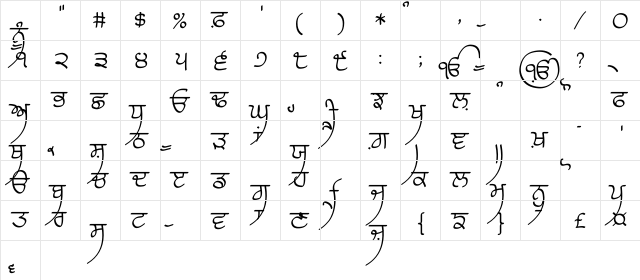
Raaj 5 Medium Regular
Foundry: Paul Alan Grosse
Designer: Paul Alan Grosse
Design Context for Raaj 5 Medium
Raaj 5 Medium is a composed and adaptable typeface that performs quietly and consistently across a wide range of design contexts.